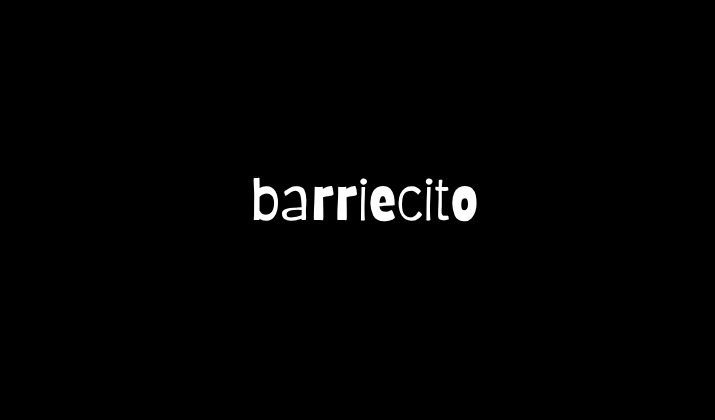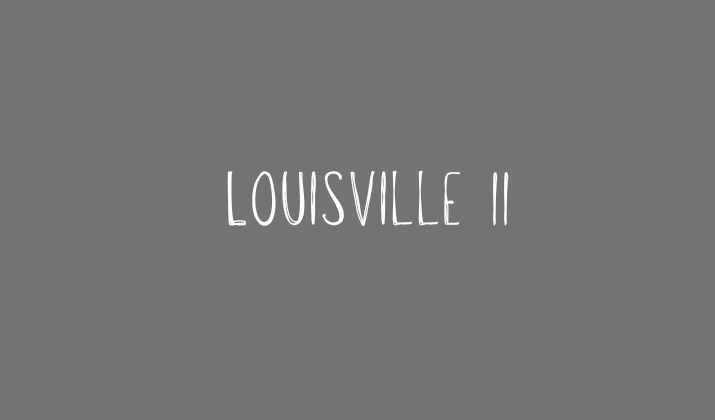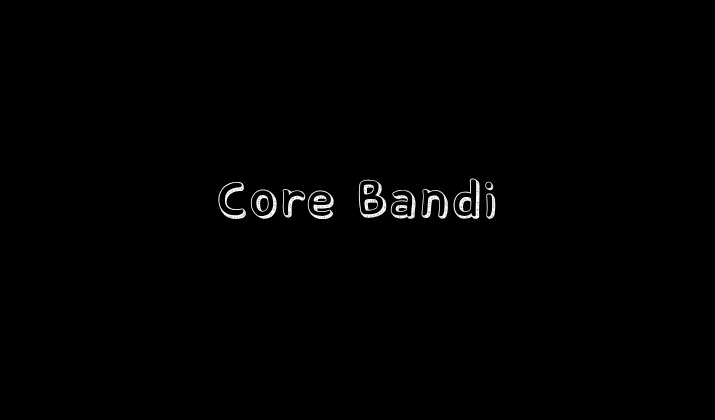
Chalk-style designs are a timeless way to give your projects a handcrafted, artistic feel.
Whether you’re creating café menus, school event posters, birthday invitations, or social media graphics, the chalkboard aesthetic instantly adds warmth and creativity.
Thankfully, Canva offers a wide range of fonts that mimic the texture and appearance of real chalk on slate—all without the mess.
In this post, we’ve handpicked 10 of the best Canva fonts that look like chalk, based on their texture, sketch-like quality, and overall vibe.
These fonts are ideal for any design that needs to feel personal, rustic, or creatively bold.
The best part? Every single one is available for free in Canva.
1. Rubik Dirt
Rubik Dirt has a gritty, textured finish that perfectly captures the powdery look of chalk.
The letterforms are solid and geometric but overlaid with a rough, worn-out texture that resembles a chalkboard that’s been written on and erased many times.
It strikes a balance between structured and rugged, making it great for headers, quotes, or menus.
The font works especially well on darker backgrounds, where the dusty effect becomes more pronounced.
Rubik Dirt adds a bold presence to your design while still maintaining an informal tone. It’s a solid pick for posters, signage, or school-themed graphics.
If you’re aiming for a strong, impactful look with a handmade touch, this font fits the bill.
2. Londrina Sketch
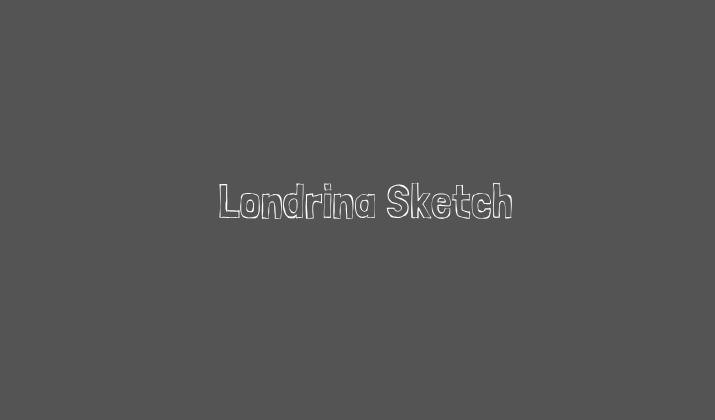
Londrina Sketch is a hand-drawn font that looks like it was lightly sketched with a piece of chalk.
It features wavy lines, inconsistent thickness, and charming irregularities that scream handmade. It’s excellent for adding character to designs, especially those aimed at younger audiences or educational themes.
Despite its sketchy nature, it remains legible and balanced. The loose structure gives it a whimsical tone that pairs well with doodles or colorful chalkboard backgrounds.
It’s ideal for posters, greeting cards, or classroom signage. Londrina Sketch adds an authentic “drawn-by-hand” feeling to any layout.
3. Art Nuvo Stamp
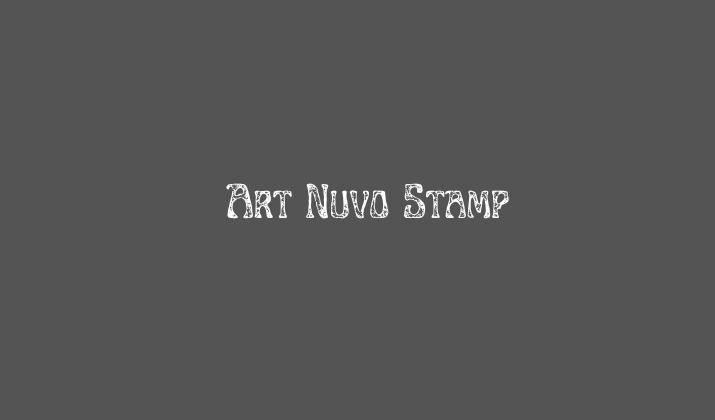
Art Nuvo Stamp has a distressed stamp texture that gives your text a powdery, weathered chalkboard appearance.
The font combines elegant Art Nouveau styling with a rugged finish, making it both sophisticated and raw.
Its stylized curves make it ideal for creative signage, vintage-themed designs, or boutique branding with an edge.
The grainy texture adds depth, almost like pressed chalk dust onto a surface. It’s best used in titles or headers where its decorative nature can shine.
Art Nuvo Stamp stands out in muted tones and bold white against darker backgrounds. It’s the perfect mix of art and imperfection.
4. Rustic Printed Stamp
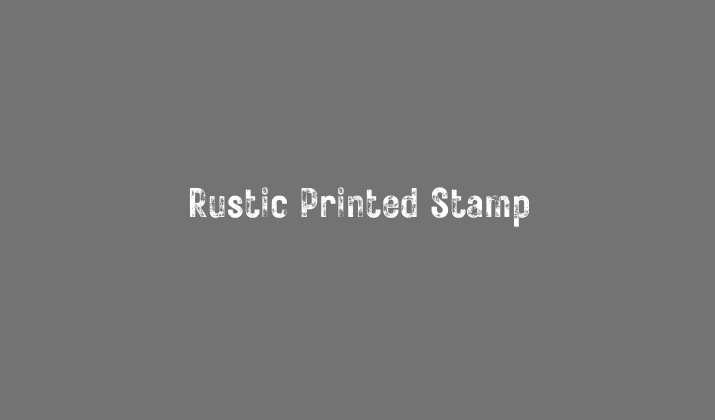
Rustic Printed Stamp captures the essence of chalk that’s been printed and smudged over time.
With irregular ink fills and slightly worn edges, this font mimics the authentic look of hand-stamped lettering on chalkboards.
It’s perfect for rustic designs like coffee shop menus, farm-to-table promotions, or vintage events.
The visual imperfections make the font feel handmade and approachable. It pairs well with textured illustrations and natural elements like leaves or woodgrain.
Use it for headlines or labels to draw attention without overwhelming the viewer. Rustic Printed Stamp adds warmth and authenticity to any chalk-style design.
5. Cabin Sketch
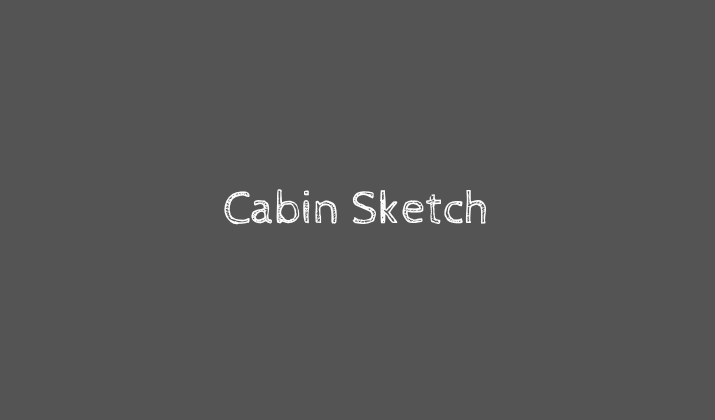
Cabin Sketch is exactly what it sounds like. A rough, hand-sketched font with a laid-back, chalky feel.
Each letter looks like it was scribbled in a notebook or casually drawn on a blackboard. It’s imperfect, fun, and brimming with personality.
This font is perfect for DIY projects, camp signs, classroom posters, or casual invites. The uneven lines and open spaces give it texture without making it hard to read.
It looks especially great in white or pastel colors on dark or grainy backgrounds. Cabin Sketch brings a sense of creativity and informality that’s perfect for handmade-inspired designs.
6. Rundeck Texture
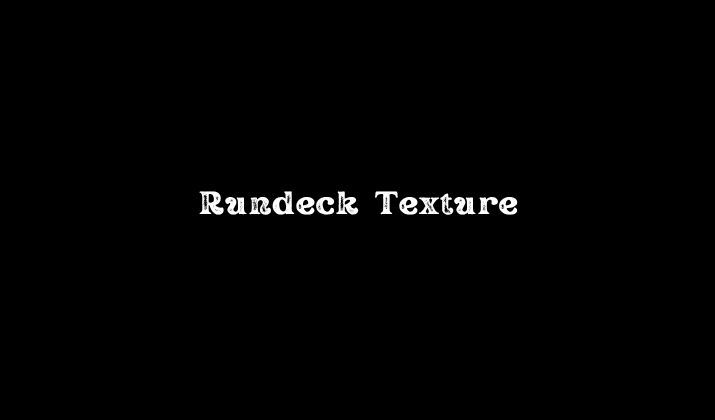
Rundeck Texture blends geometric precision with a grungy, worn texture that resembles chalk rubbed into a board.
The font feels modern and angular, but its textured overlay gives it a nostalgic, dusty quality. It’s great for combining contemporary design with classic chalkboard vibes.
Rundeck Texture works well in digital graphics, DIY kits, or signage that needs a creative twist. It pairs beautifully with minimal icons and chalk illustrations.
The texture is strong enough to stand out without sacrificing legibility. This font adds a clean yet crafty aesthetic to your designs.
Conclusion
Chalk-inspired fonts bring a unique combination of nostalgia, creativity, and hand-crafted warmth to any design.
Be it something bold and blocky or light and decorative, these fonts are ideal for achieving that perfect chalkboard vibe.
Each one offers its own charm, be it textured, sketched, or outlined, and pairs beautifully with blackboard-style backgrounds and pastel colors.